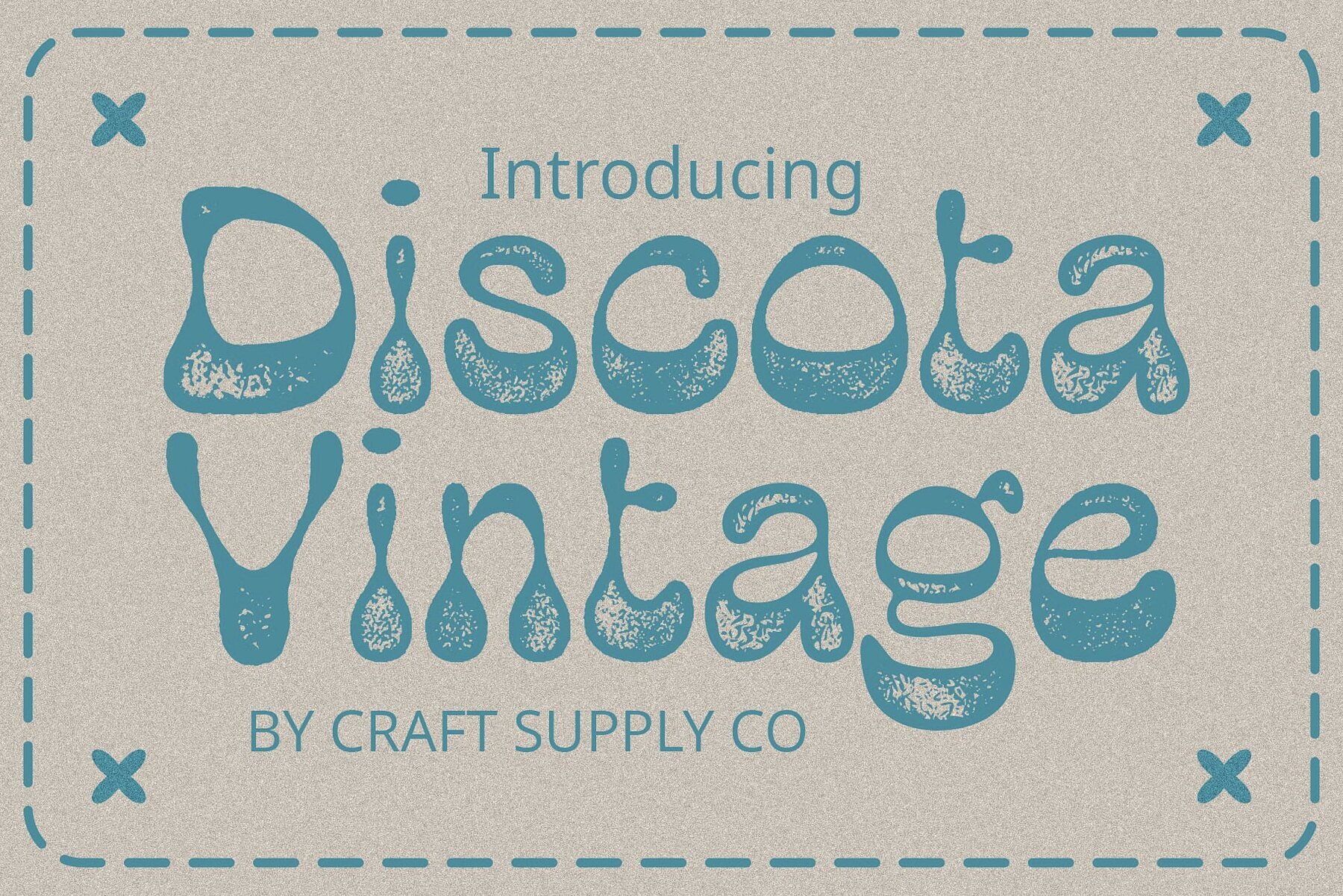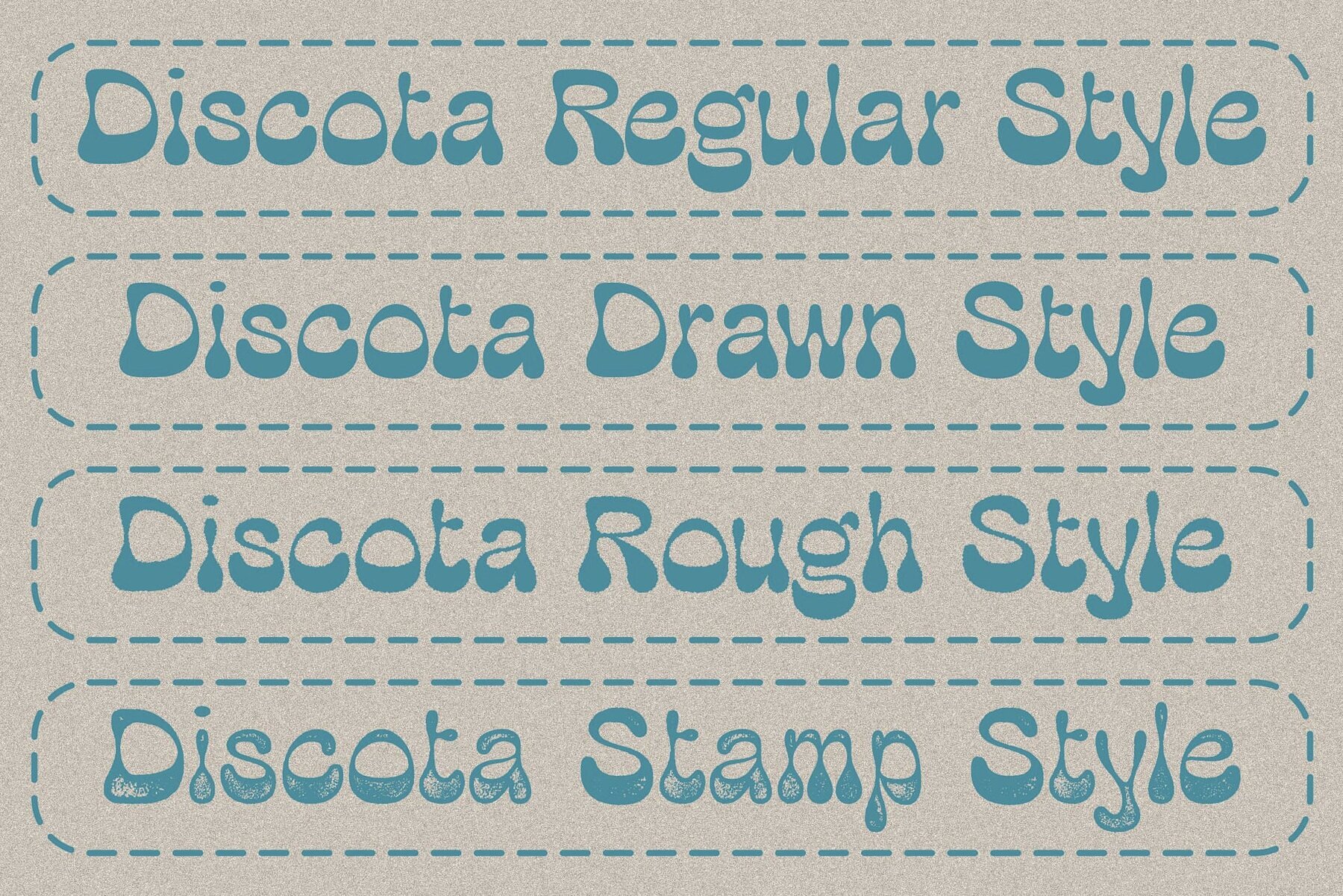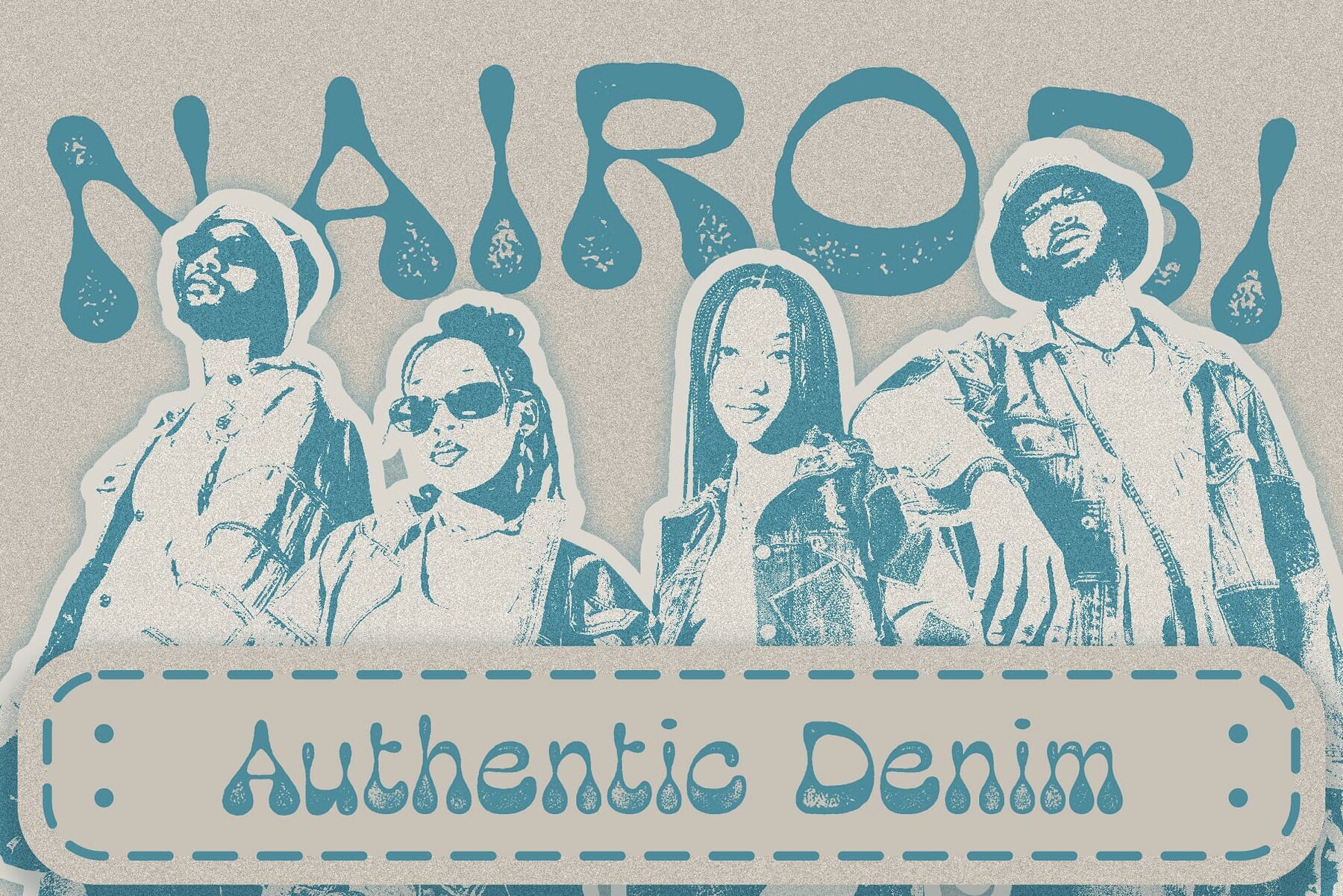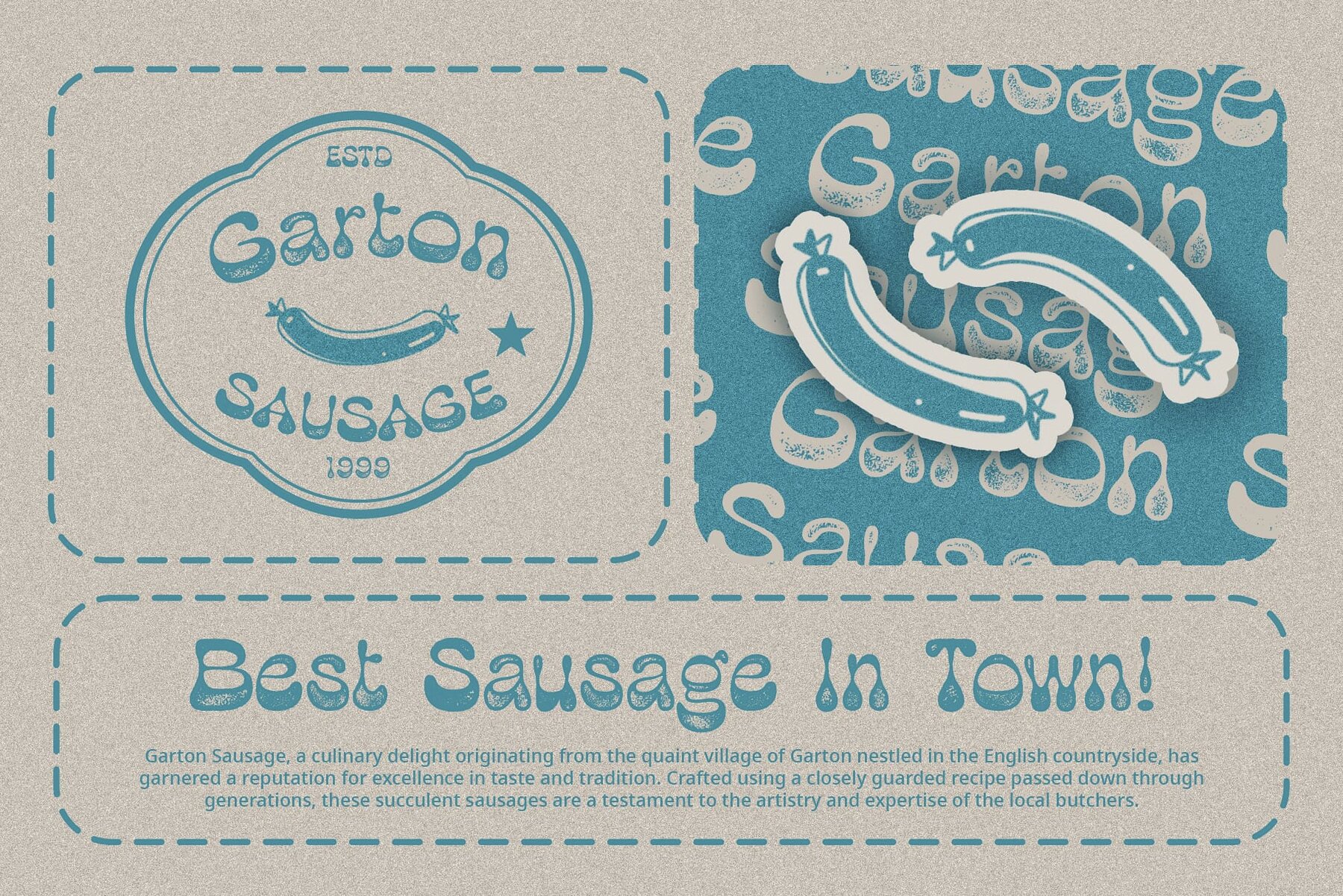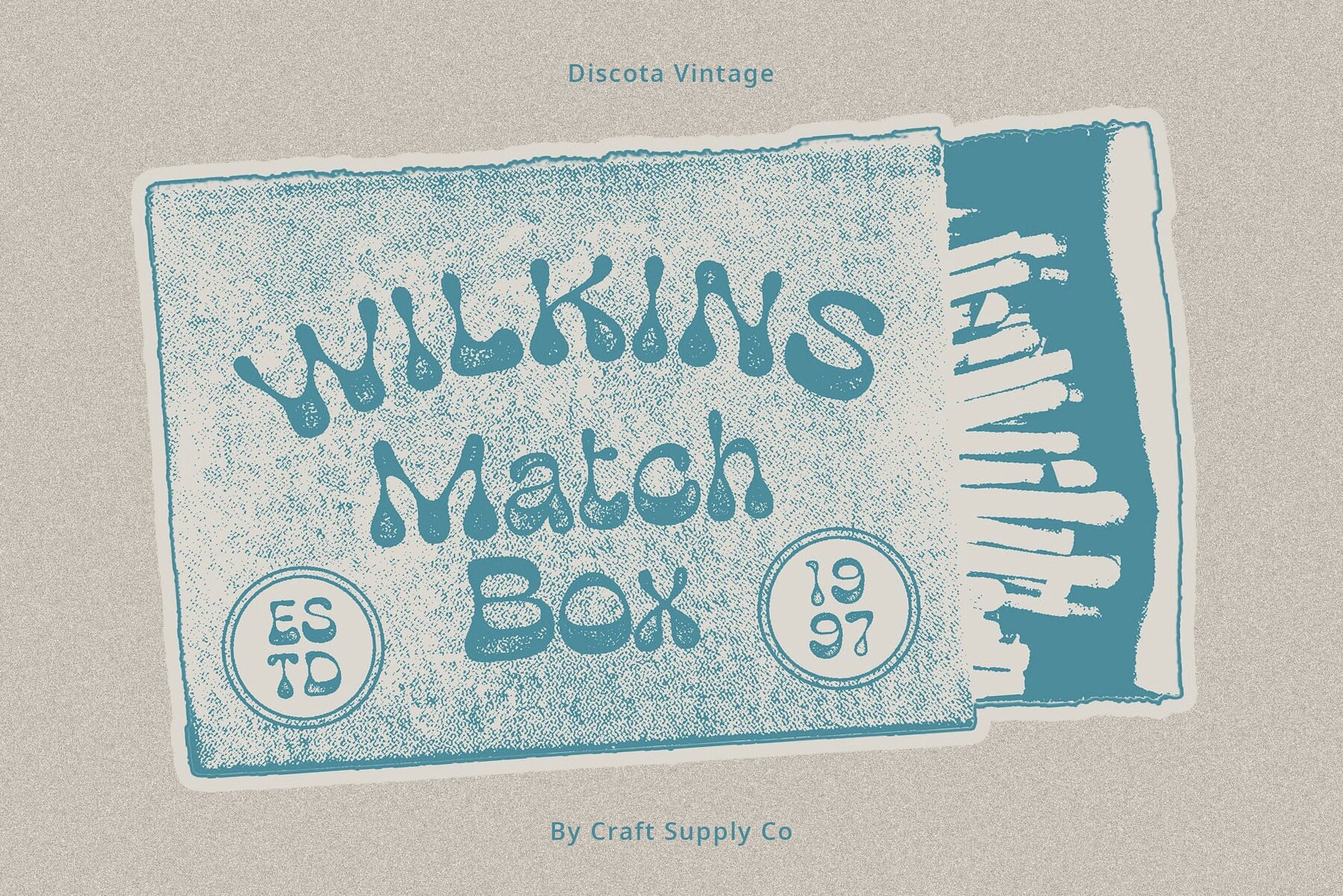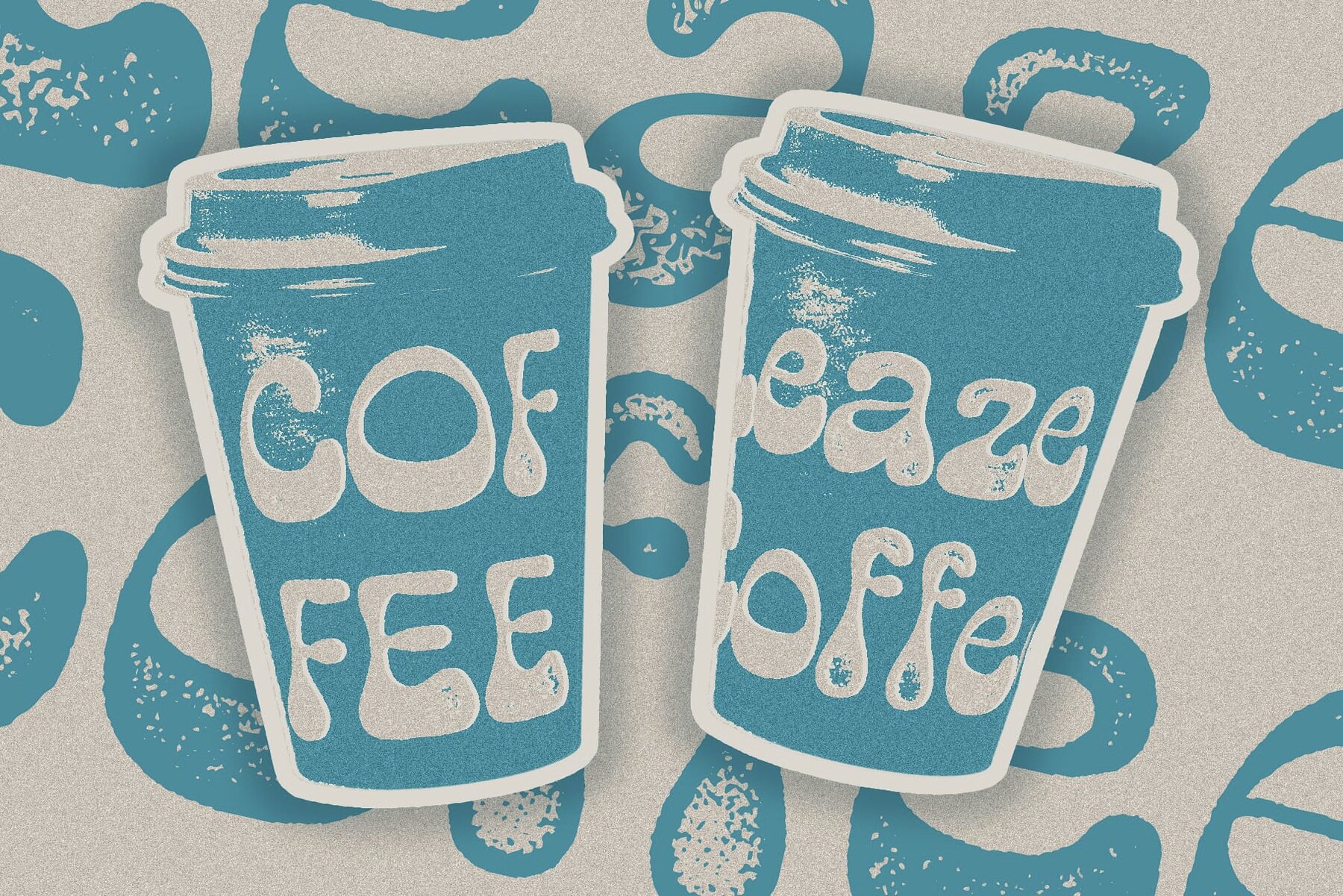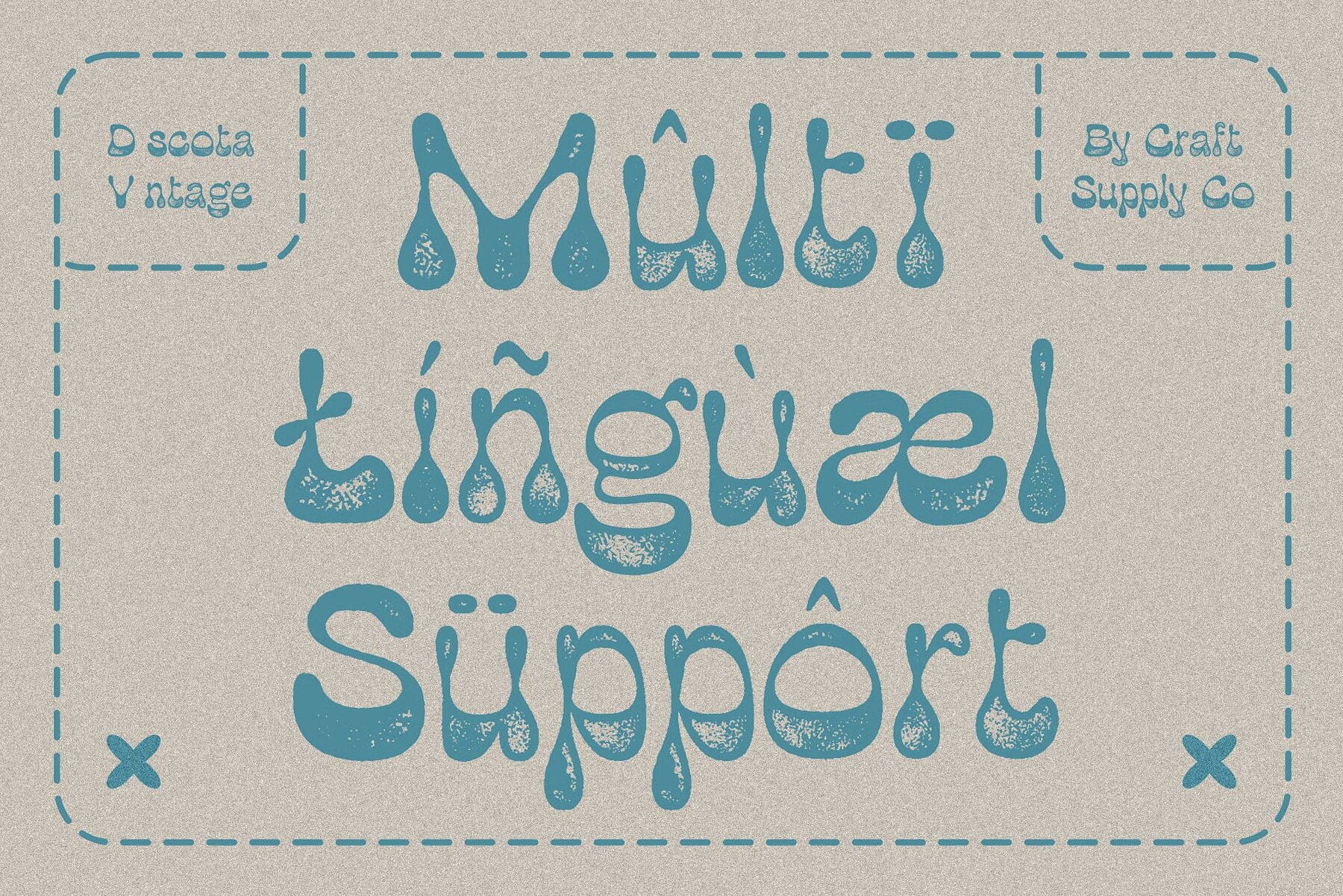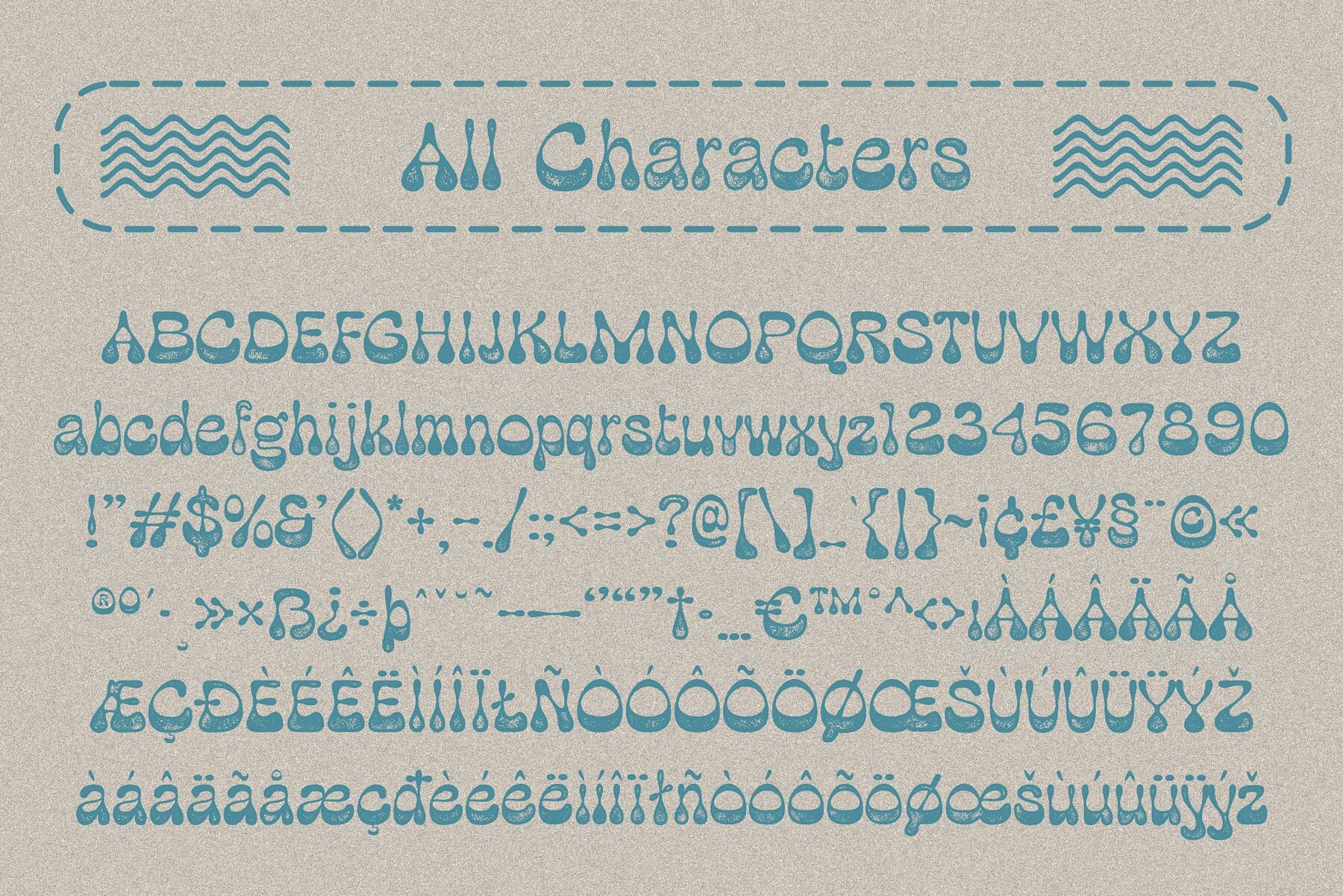
Discota Vintage Font
Discota Vintage captures the whimsy of balloons with its bubbly shapes, evoking a sense of joy and playfulness reminiscent of childhood. Infused with a rough stamp effect, this font exudes a vintage allure, adding character and authenticity to your designs. Tailored for attention-grabbing displays, this font shines in various contexts, from retro-themed posters to playful packaging designs. Beyond its nostalgic appeal, this font offers versatility in application. Whether used in branding, merchandise, or social media graphics, its bubbly charm adds a unique touch. With its bubble-inspired shapes and vintage stamp roughness, this font adds a playful yet authentic vibe to any creative endeavor. Embrace the charm of yesteryears with this font. No specialized software is needed to utilize this typeface. For any inquiries or assistance, please don’t hesitate to get in touch. We appreciate your support in making your creative projects shine! Best regards, Craft Supply Co.Discota Vintage: Nostalgic Bubble Display Typeface
Bubble-Inspired Charm
Ideal for Eye-Catching Displays
Versatile Application
Playful Nod to the Past